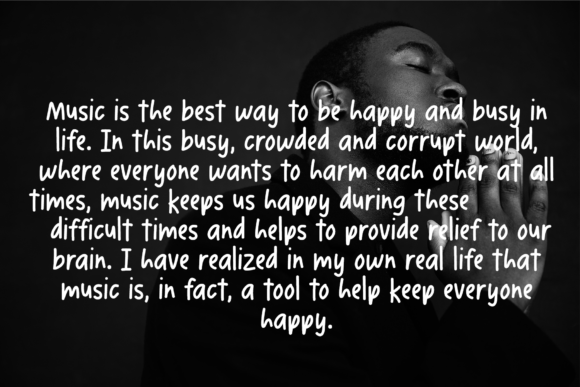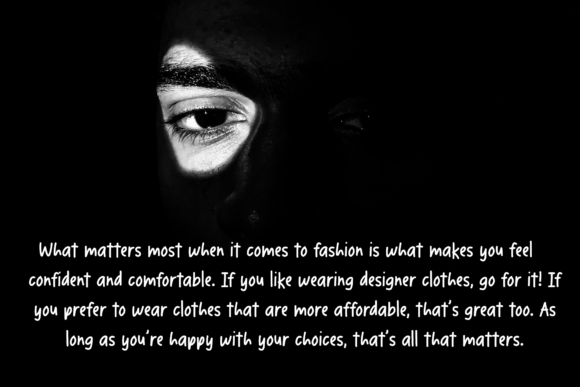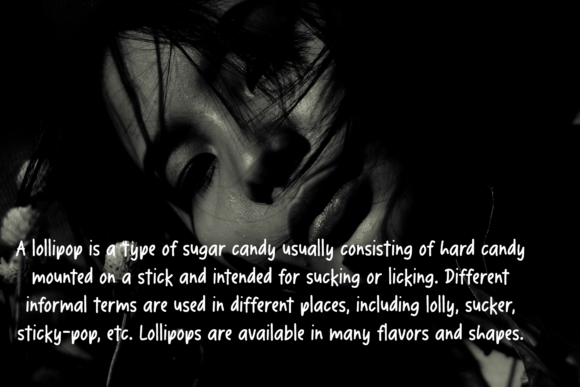
Introduction to Prismatic Vogue Font
Do you remember the moment when you stumbled upon the perfect font for your creative project? For designers, it’s that ‘aha’ moment when everything falls into place, and your design comes alive. For me, that moment came when I discovered the Prismatic Vogue Font. Its unique blend of elegance and whimsy instantly captured my heart and sparked a desire to share its magic with fellow creatives.
Prismatic Vogue Font is a masterclass in design, offering a high-quality, free download that’s perfect for adding a touch of sophistication to your design projects. With its transparent background, this versatile font is ideal for use on invitations, greeting cards, logos, or social media graphics. Whether you’re a seasoned designer or just starting out, the Prismatic Vogue Font is an invaluable design resource that’s sure to elevate your creative endeavors.
As a valuable addition to any designer’s arsenal, the Prismatic Vogue Font brings a sense of individuality and creativity to any project. Its refined yet playful nature makes it a standout choice for designers seeking to inject some personality into their work. In this article, we’ll delve into the world of Prismatic Vogue Font and explore its many uses and benefits.
Key Features of Prismatic Vogue Font
- High-quality, unique design perfect for creative projects, available for free download.
- Features a bold, modern aesthetic, ideal for use in headings, titles, and other prominent design elements.
Honest Review: Prismatic Vogue Font
I recently stumbled upon the Prismatic Vogue Font and I have to say, it’s been a game-changer for my creative project. The font is a high-quality addition to any design resource, and it’s completely free to download. One of the standout features is the transparent background, which makes it super easy to integrate into any design.
Here are some things that work well with the Prismatic Vogue Font:
- ✨ Sleek and modern design that’s perfect for fashion and beauty brands
- ✨ Highly customizable with various font styles and sizes
Overall, I’m really impressed with the Prismatic Vogue Font. It’s a fantastic design resource that’s perfect for creative projects. With its high-quality design and transparent background, it’s a great addition to any designer’s toolkit. Just be aware of the potential limitations and compatibility issues, and you’ll be good to go.
Prismatic Vogue Font Overview
The Prismatic Vogue Font is a high-quality, free download that offers a unique and stylish design resource for your creative project. Its transparent background makes it versatile for various applications.
Tips for Getting the Most Out of Prismatic Vogue Font
For optimal results, use the Prismatic Vogue Font in conjunction with a high-contrast background to make the text stand out. You can also experiment with different font sizes and styles to add visual interest to your design.
The Prismatic Vogue Font is ideal for creative projects, such as social media graphics, blog posts, and marketing materials. Its unique style and high-quality design make it a valuable resource for designers and non-designers alike.
Yes, the Prismatic Vogue Font has a transparent background, making it perfect for use on projects that require a seamless integration with other design elements. This feature allows the font to blend in with the background, creating a clean and professional look.